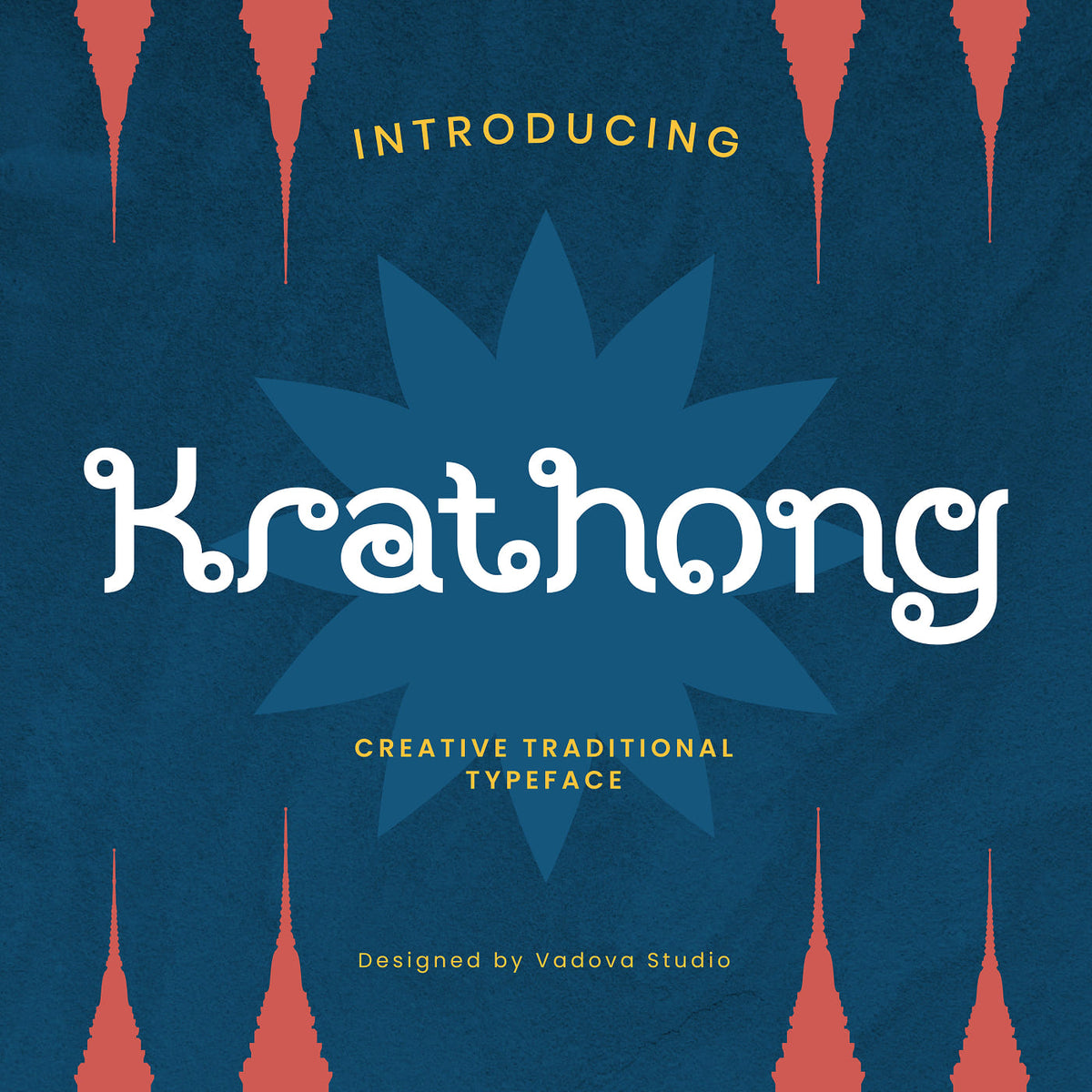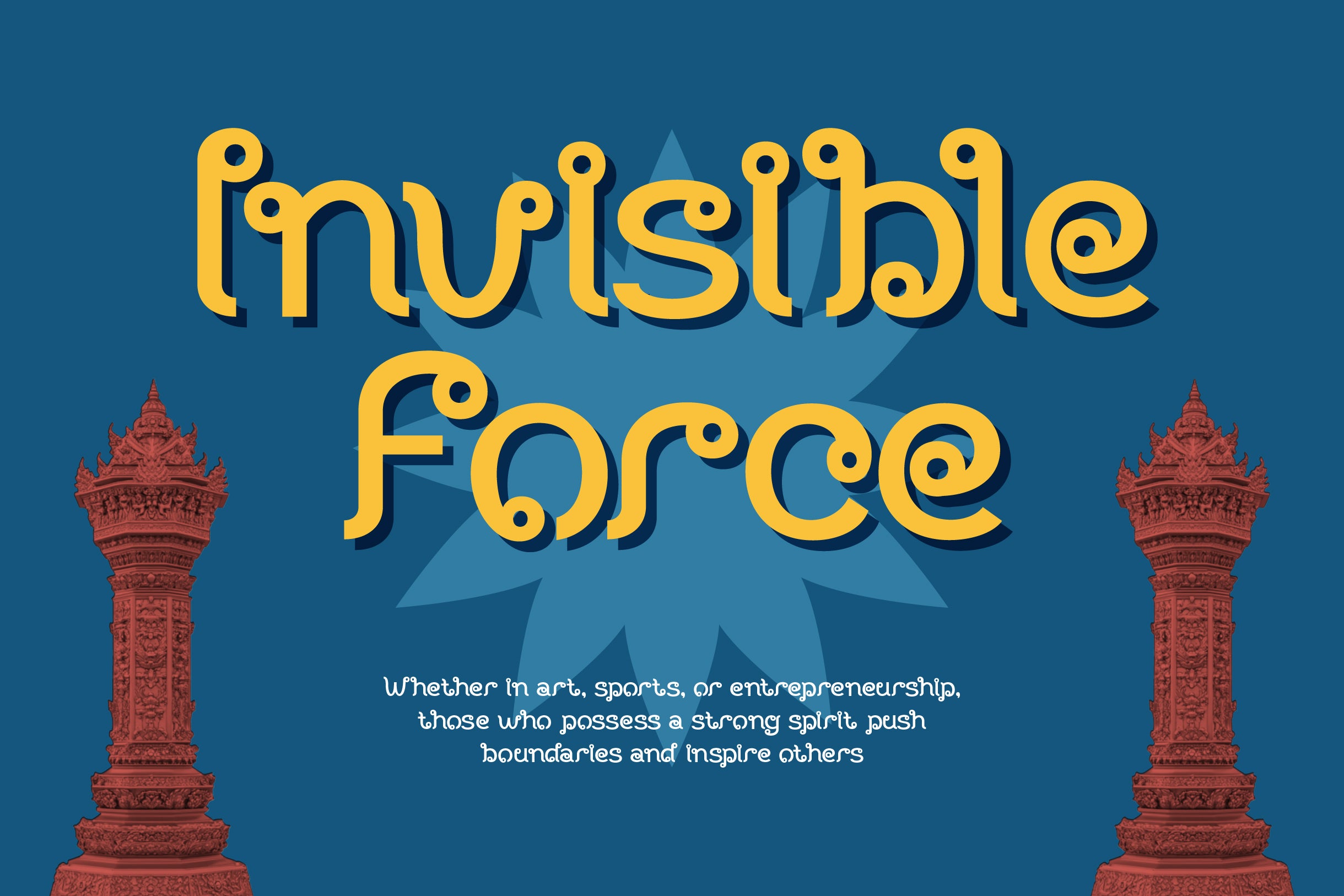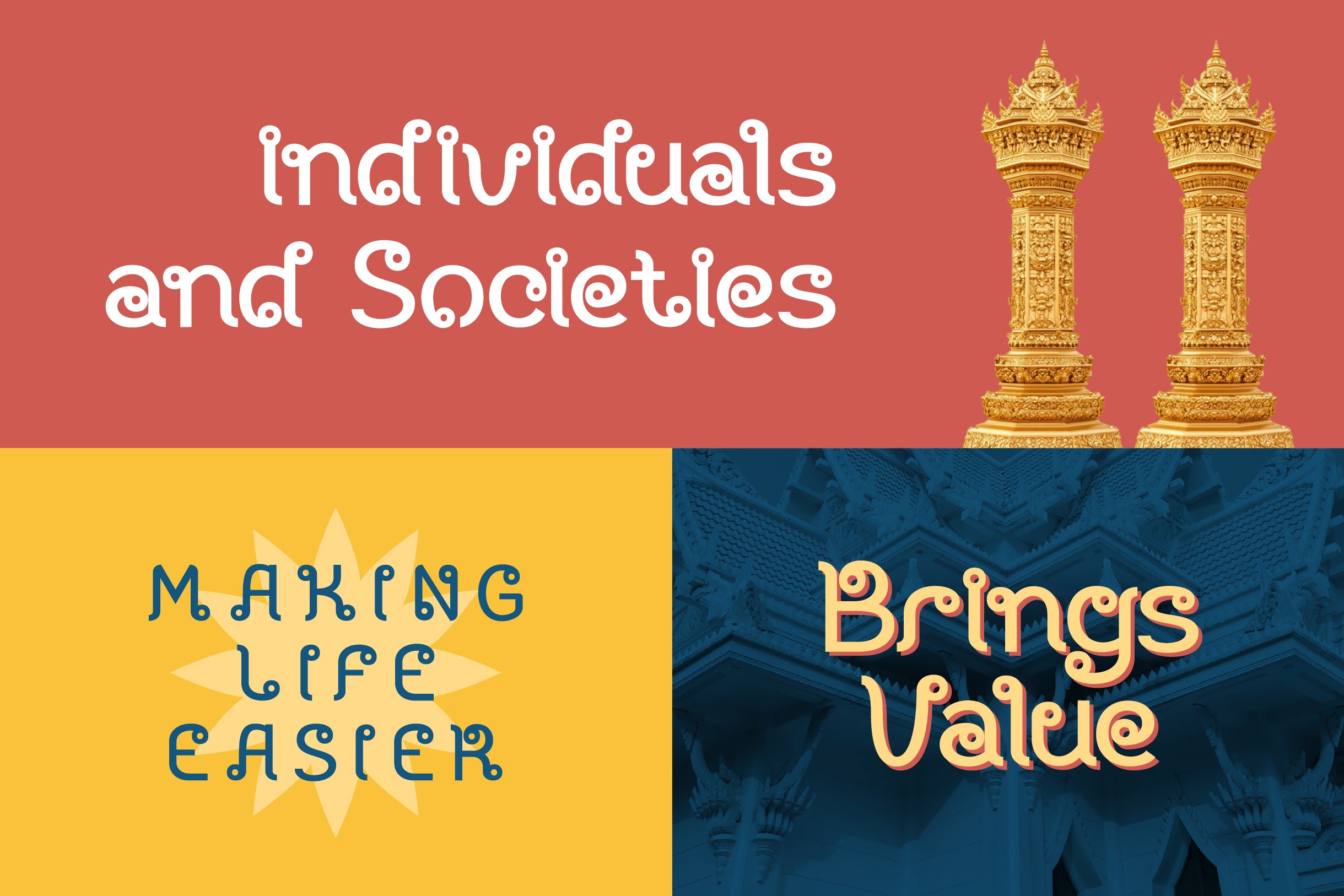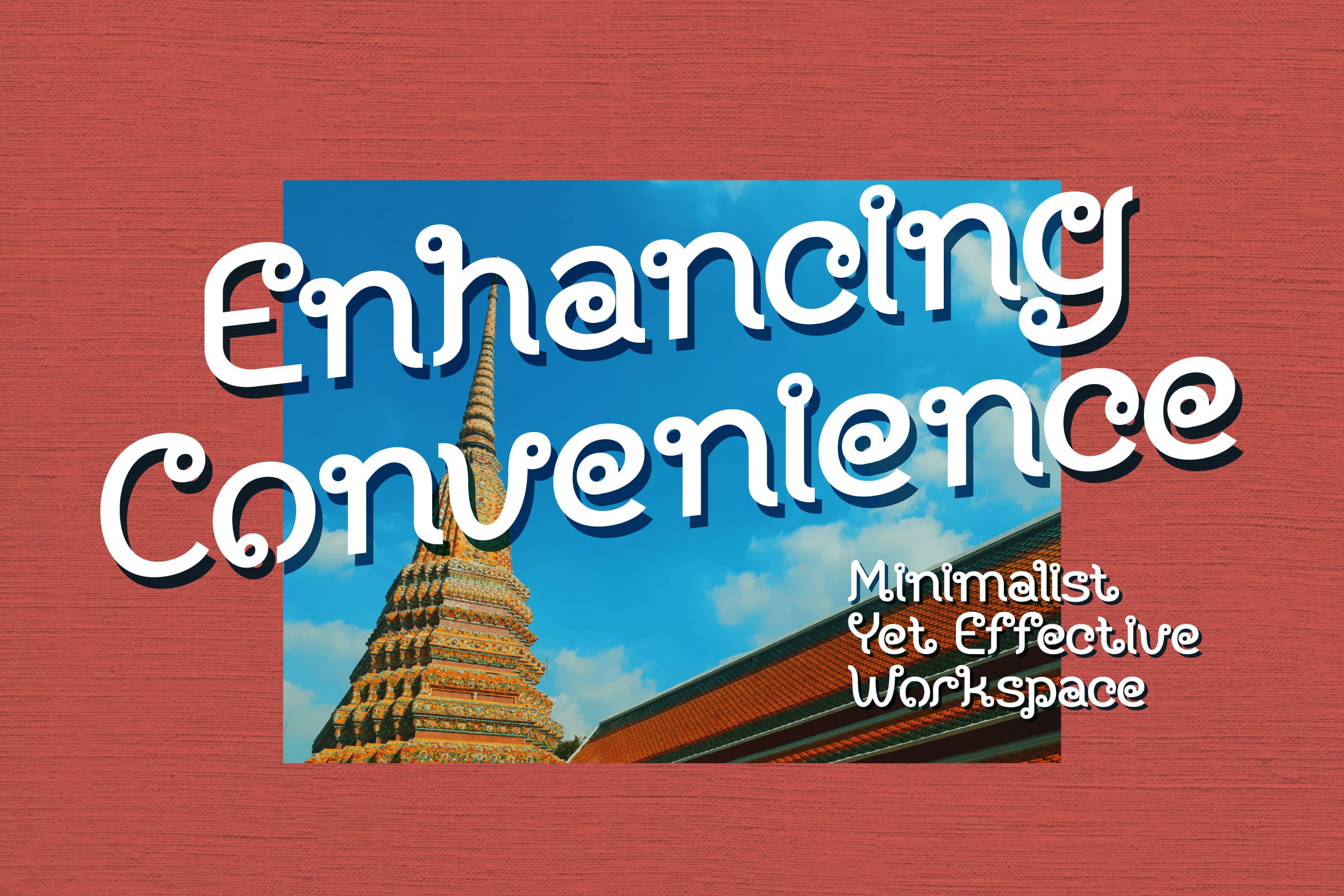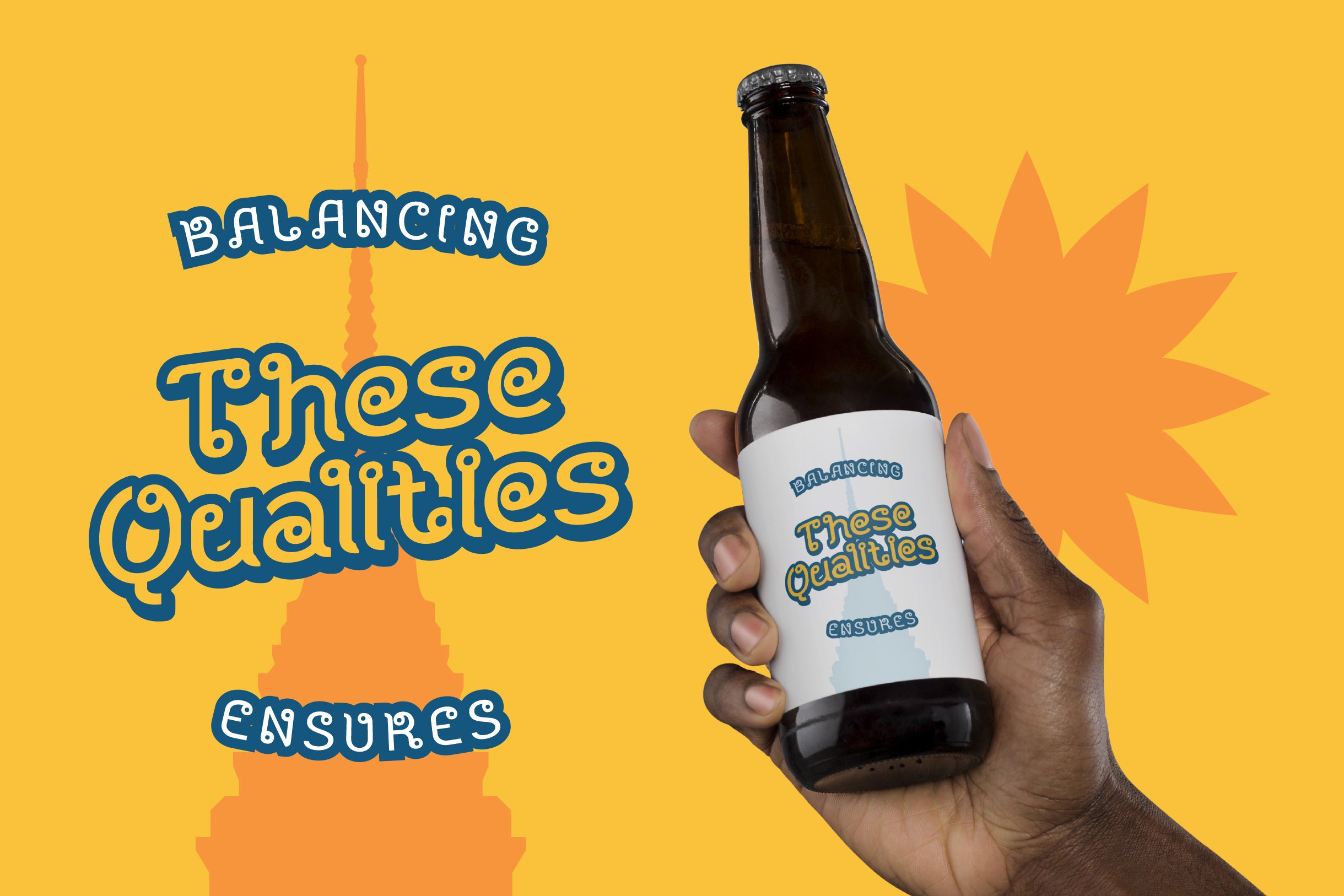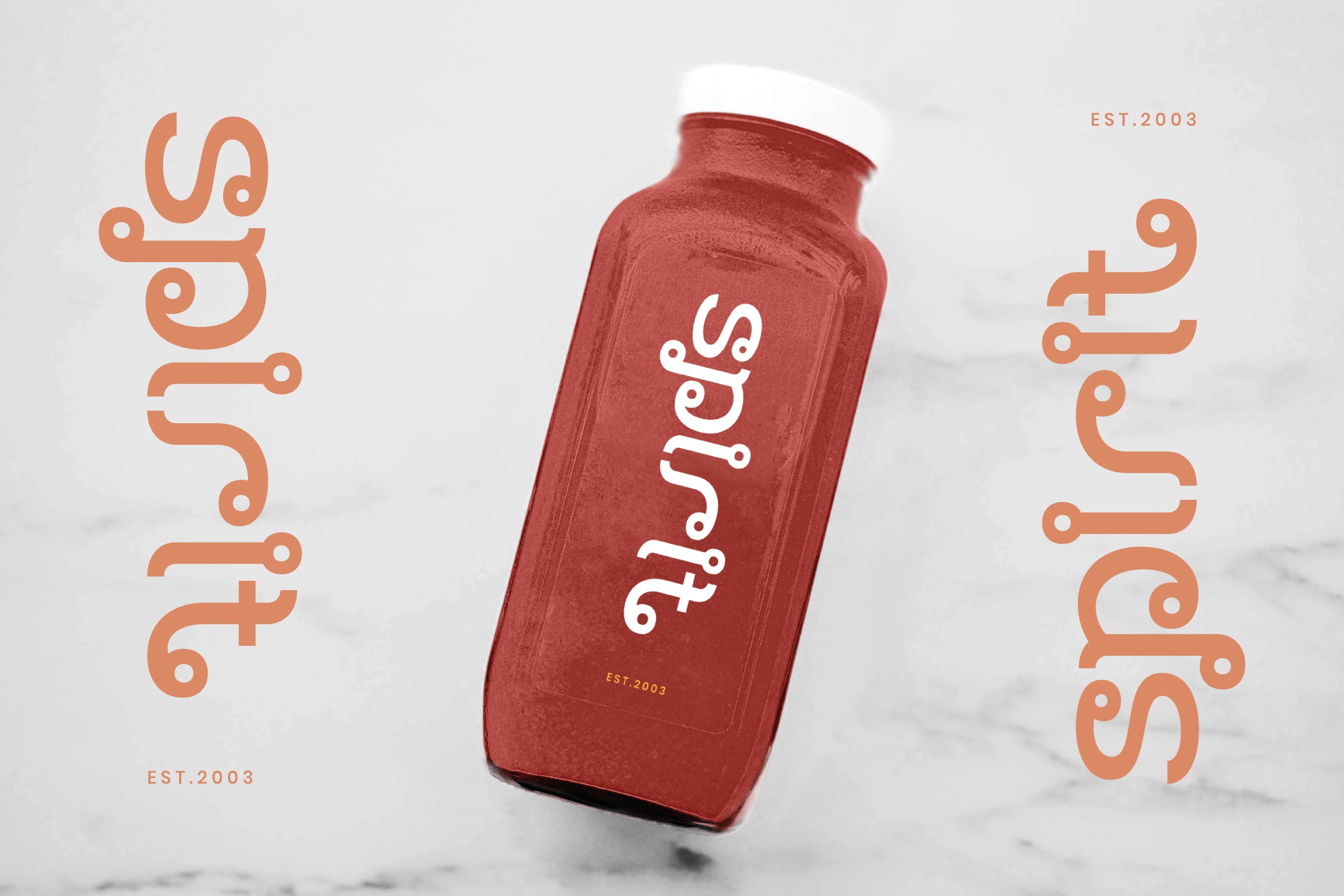
Krathong Creative Traditional Typeface Font
Krathong is a creative traditional typeface inspired by Southeast Asian cultural forms, ornamental curves, and handcrafted lettering aesthetics. Its rounded terminals and decorative swirls give it a festive, folkloric personality that works beautifully for cultural branding, heritage festival posters, craft product packaging, ceremonial invitations, tourism campaigns, and editorial titles with ethnic flair. Comes with uppercase, lowercase, numerals, and punctuation in OTF, TTF, and WOFF formats.
Relevance and Use Cases is perfect for cultural event posters, traditional festival branding, Southeast Asian tourism design, heritage-inspired packaging, organic craft label design, ethnic editorial layout, restaurant identity, handmade product branding, ceremonial invitation graphics, artisan market signage, and folklore-themed merchandise.
Krathong is a Southeast Asian-inspired typeface featuring rounded terminals and decorative swirls, including uppercase, lowercase, numerals, and punctuation. It is available in OTF, TTF, and WOFF formats.